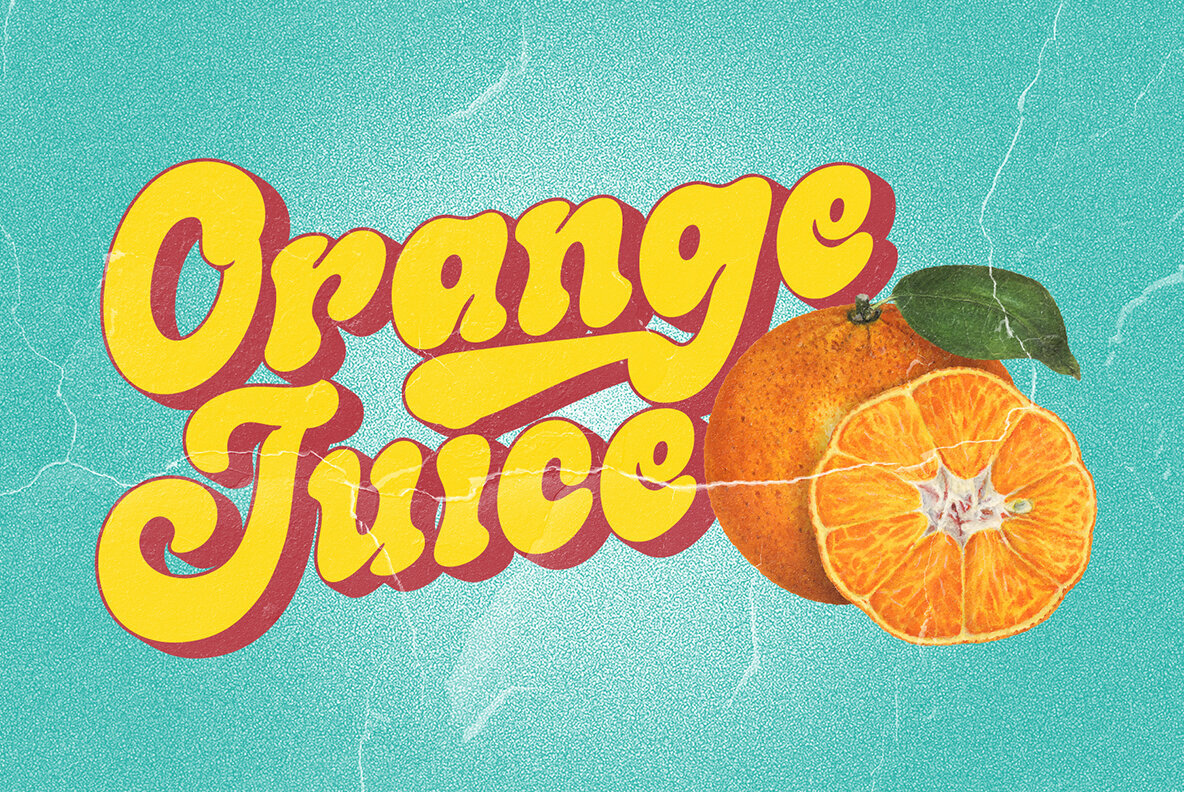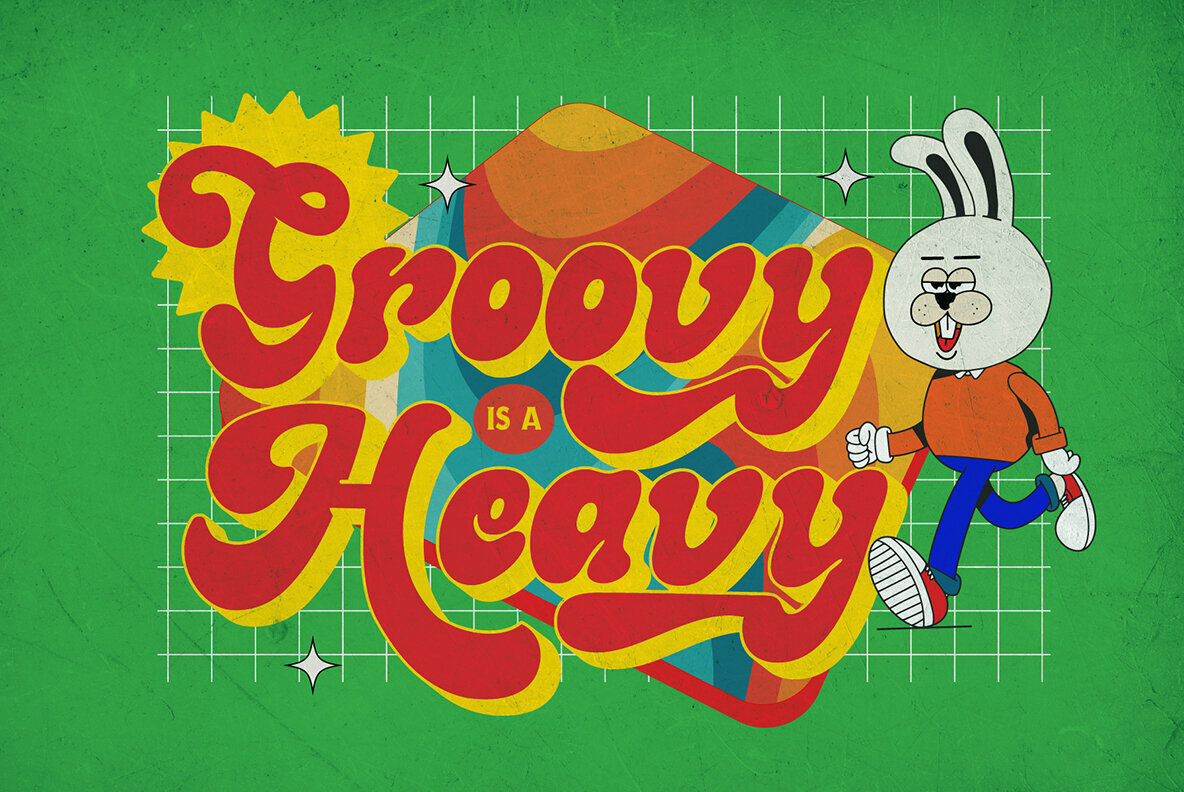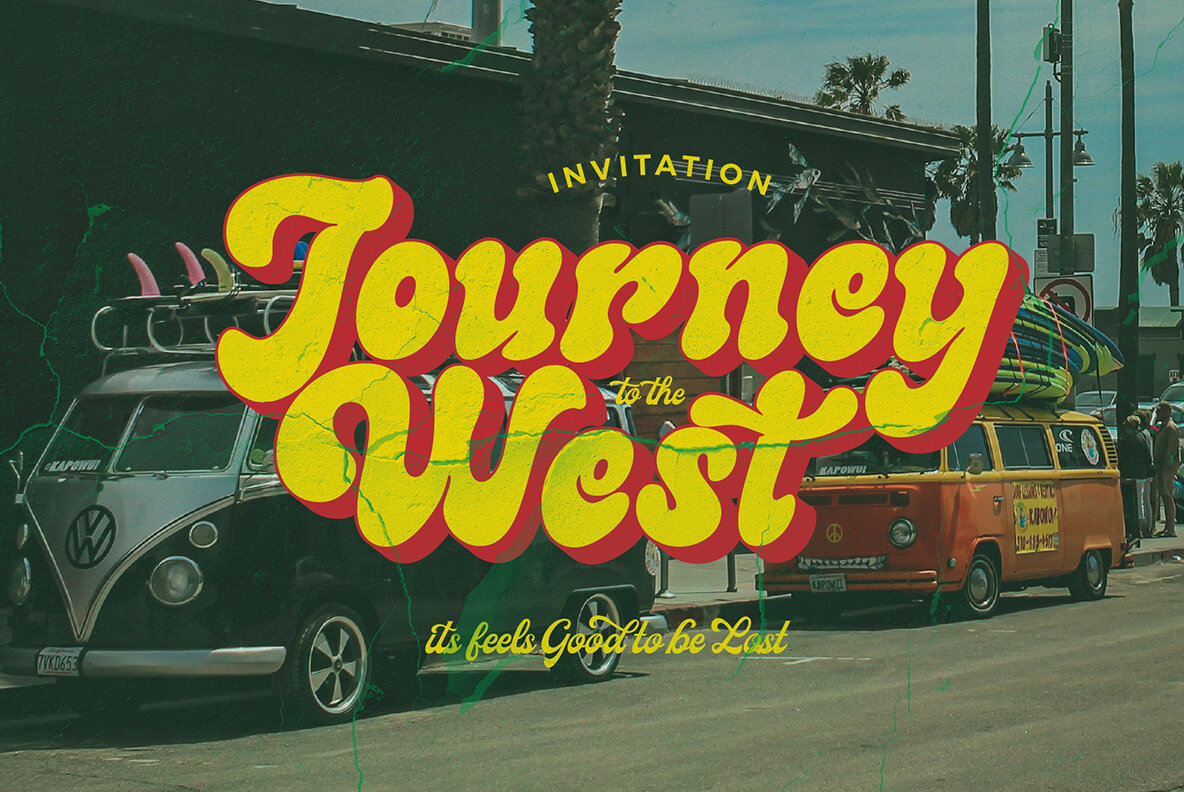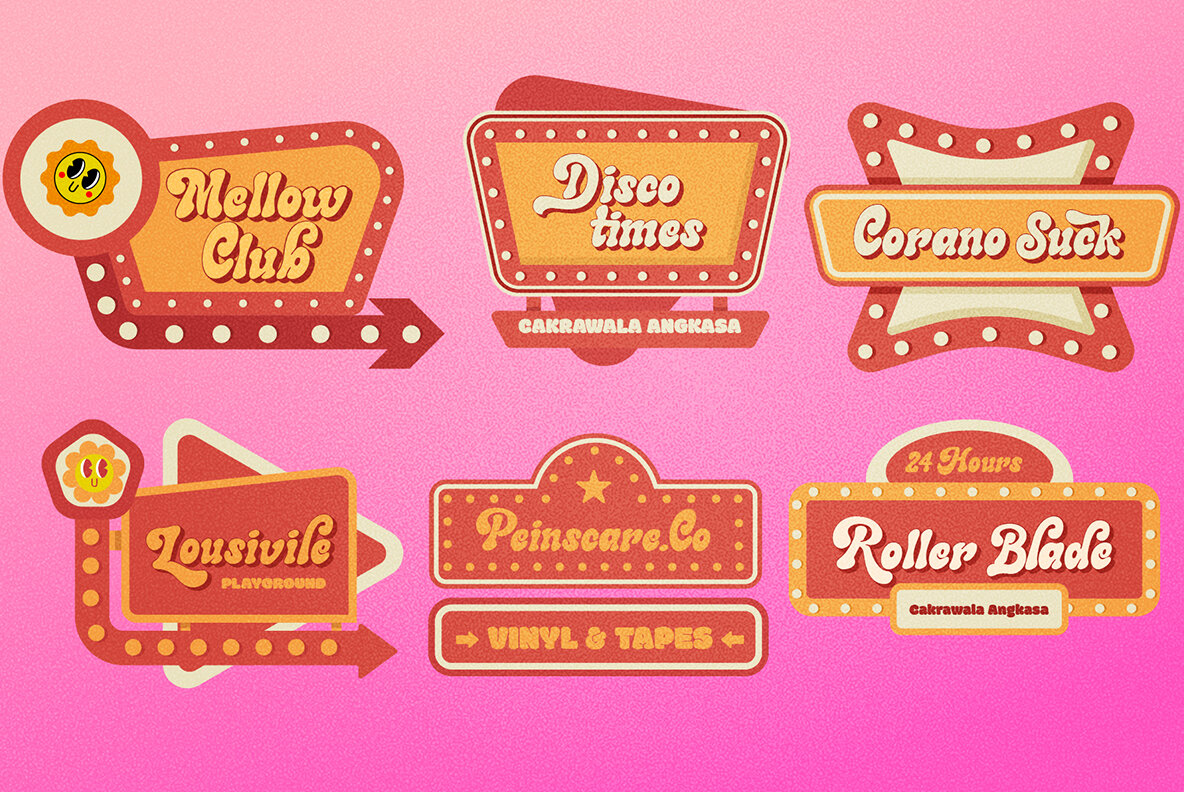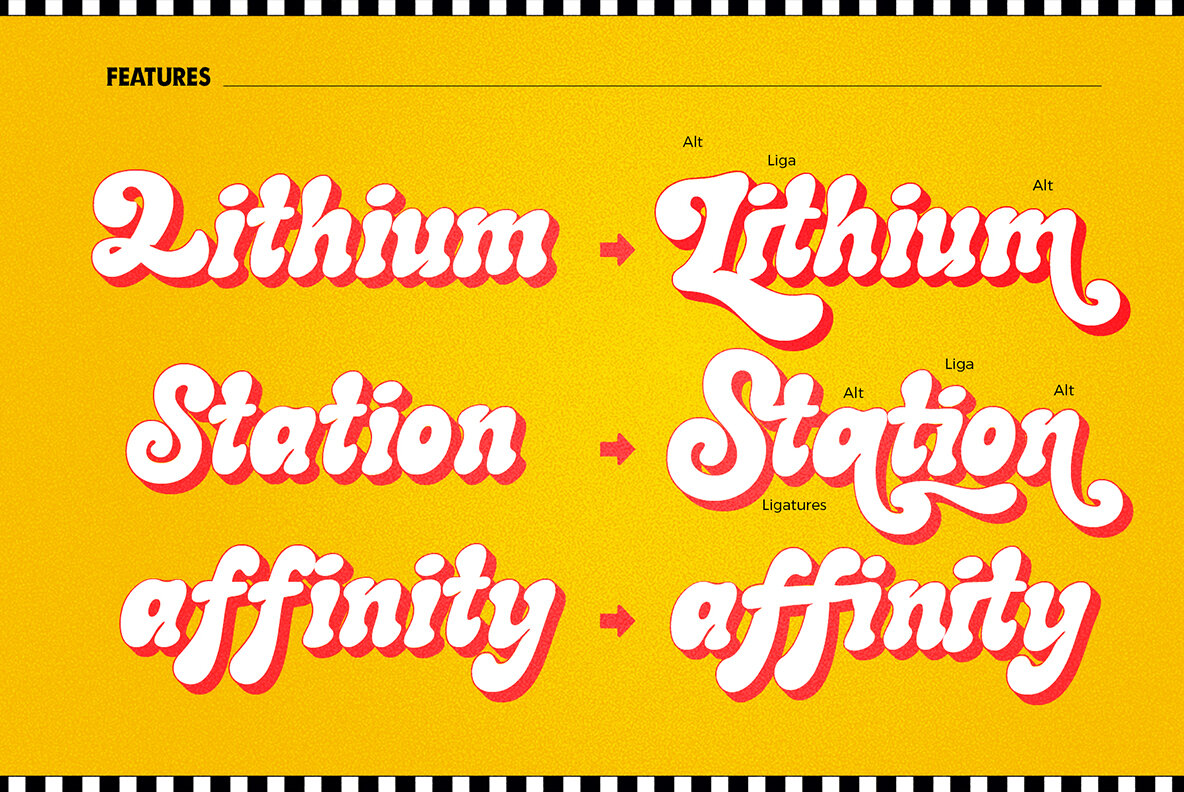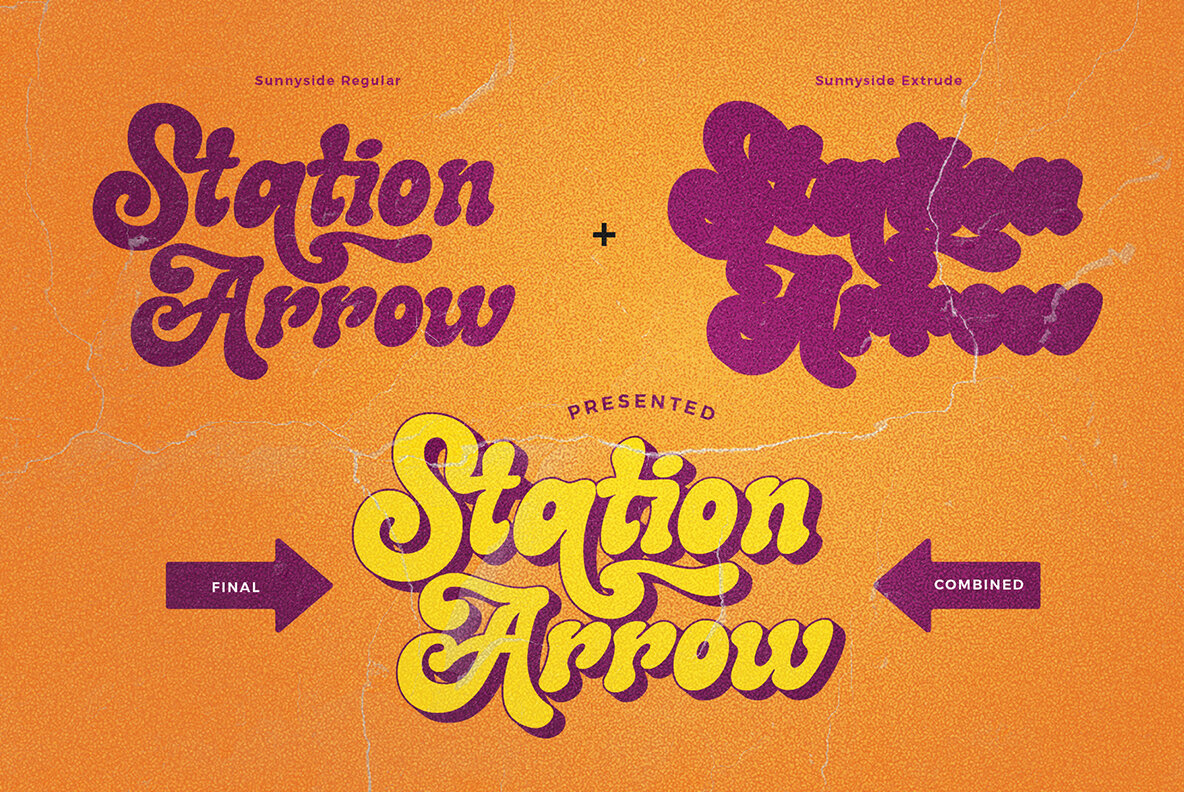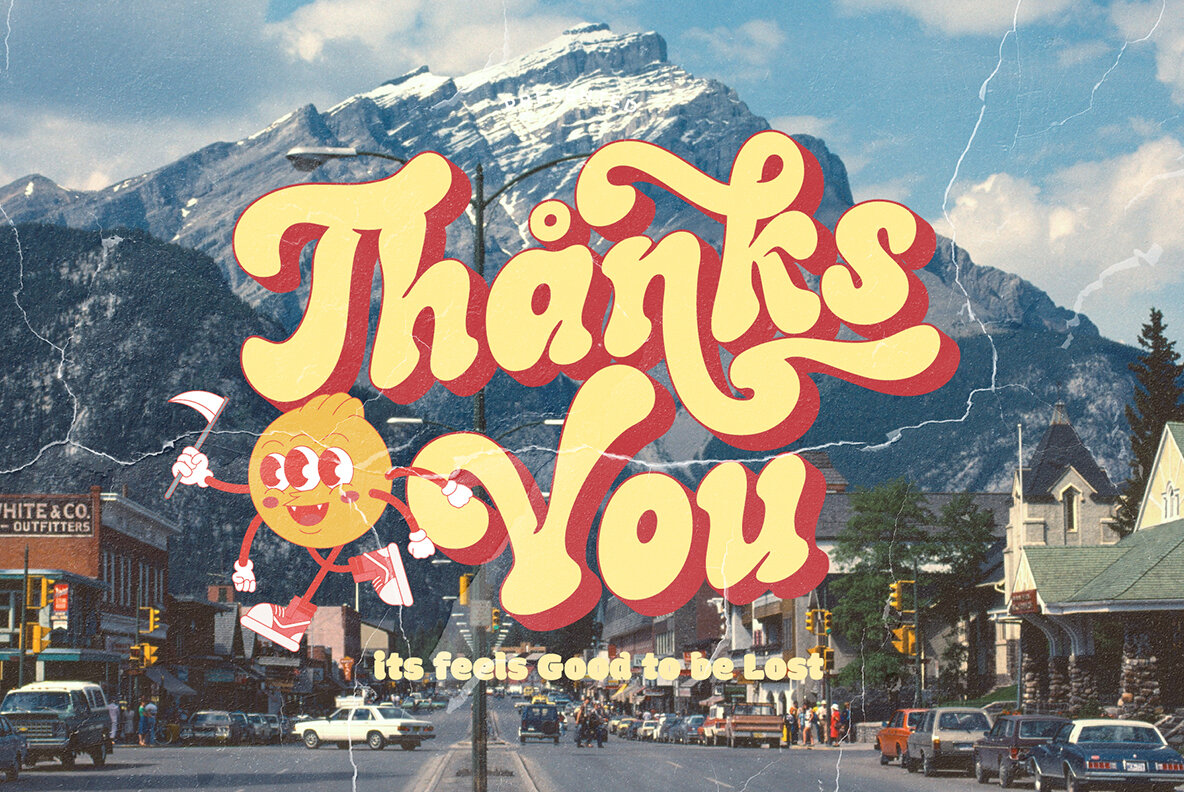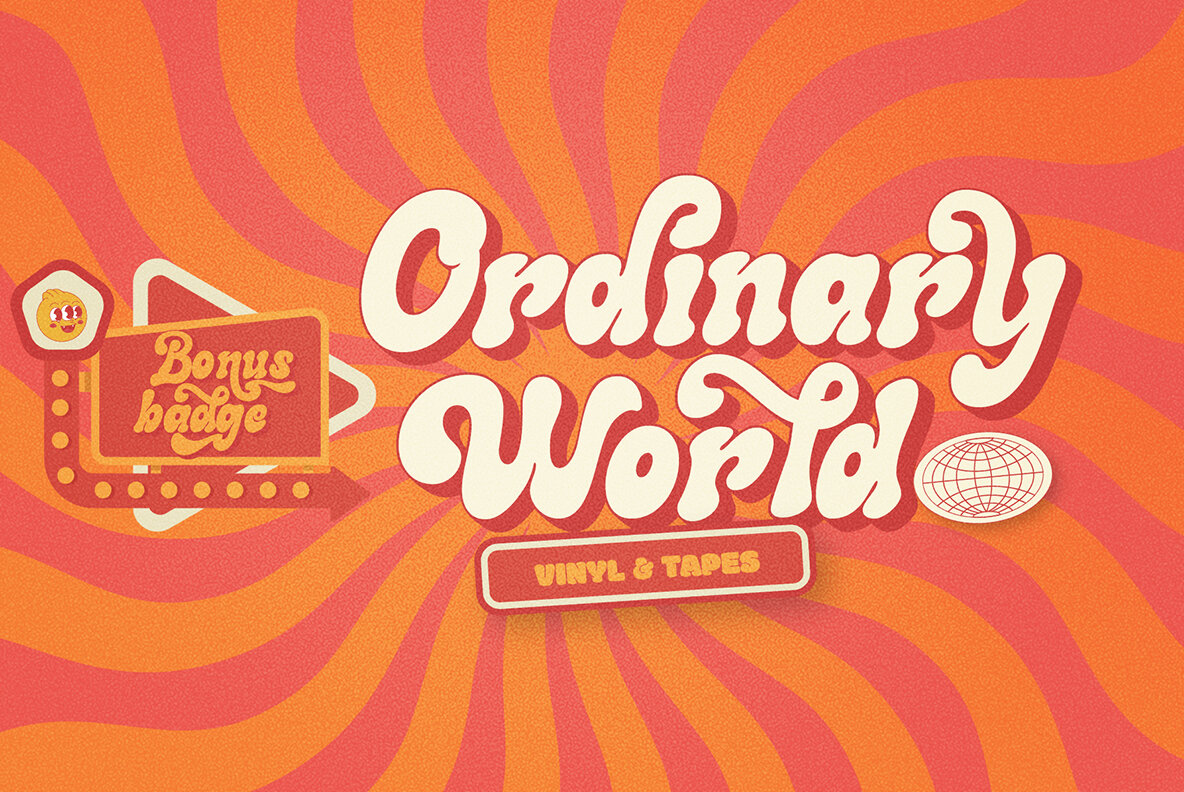
Sunnyside Font
The Sunnyside font by Ramandhani Nugraha brings a nostalgic flair to your design projects. This retro font duo, comprising Regular and Extrude styles, echoes the vibrant visual aesthetic of the 80s. Its versatile nature makes it an excellent choice for various applications, including magazine covers, brochures, logos, and headlines. Whether used as a stand-alone display font or in shorter paragraphs, Sunnyside projects an aura of vintage charm and authority.Sunnyside: A Retro Font Duo for Dynamic Designs